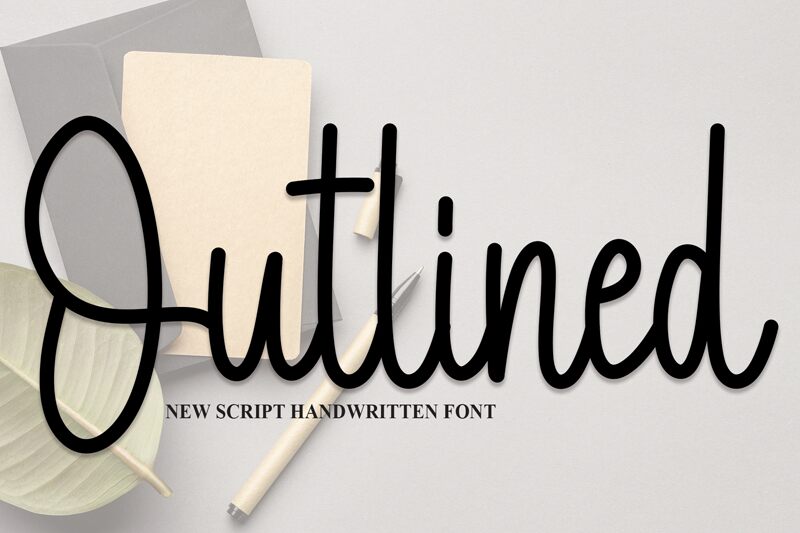
Outlined
The Outlined font by Scratchones is a beautifully crafted handwritten typeface with a touch of vintage charm. Its semi-light weight and condensed width make it perfect for adding a unique and elegant touch to various projects.
Whether you're designing invitations, creating logos, or crafting eye-catching headlines, this font will effortlessly elevate your designs to the next level. Its distinctive style and exquisite details will transport your audience back in time while giving your work a modern edge.
Embrace the nostalgia with the versatile Outlined font.
Rhe latest style letters are perfect for wall displays, wedding invitations, social media post logos, advertisements, product packaging, product designs, labels, photography, watermarks, invitations, stationery, and any project that requires taste handwriting.
Whether you're designing invitations, creating logos, or crafting eye-catching headlines, this font will effortlessly elevate your designs to the next level. Its distinctive style and exquisite details will transport your audience back in time while giving your work a modern edge.
Embrace the nostalgia with the versatile Outlined font.
Rhe latest style letters are perfect for wall displays, wedding invitations, social media post logos, advertisements, product packaging, product designs, labels, photography, watermarks, invitations, stationery, and any project that requires taste handwriting.